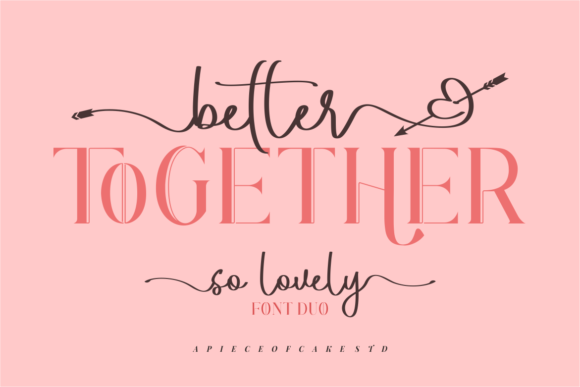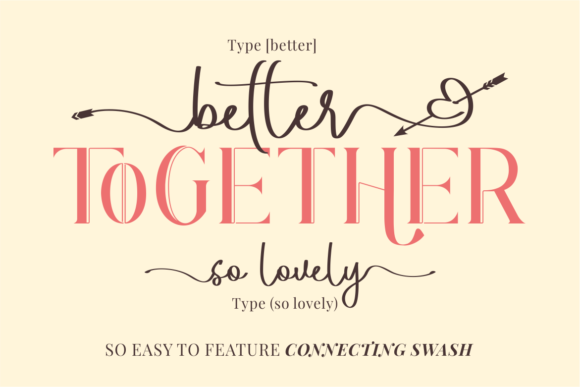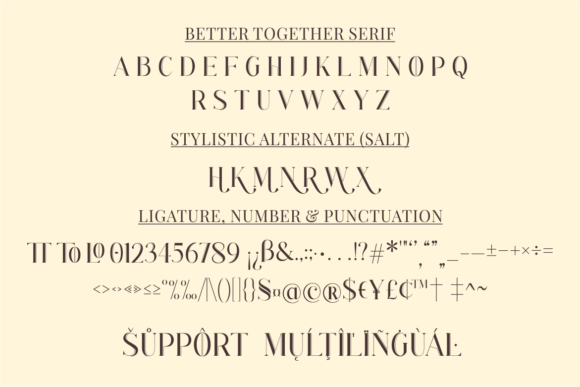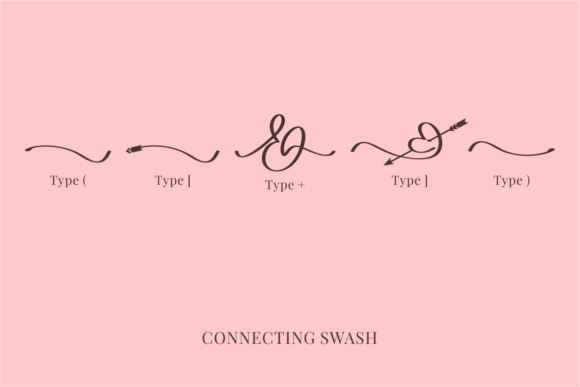
About Better Together Font
Better Together is a stylish and delicate handwritten duo font suitable for a wide spectrum of applications. From greeting cards to headlines, add this spectacular font to any of your creative projects, and it will guarantee them a romantic touch!